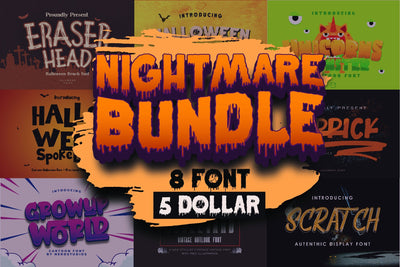
Nightmare Bundles-font with slime style that can enhance the quality of your designs.
Nightmare Bundles– This Font is perfect for Halloween designs, Halloween logos, social media, brands, advertisements, product designs, handwritten quotes, product packaging, headers, posters, merchandise, and other designs.